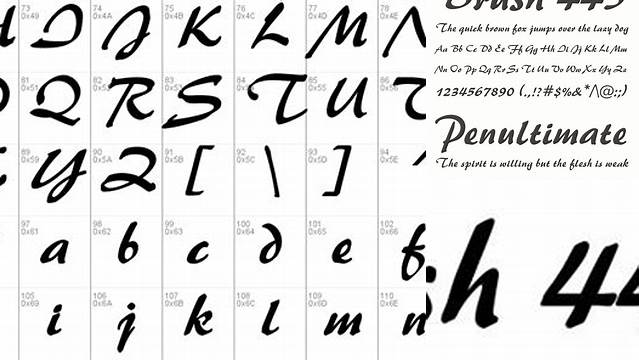
Brush 445 Font: Free Download & Creative Uses
Let's dive into everything about the Brush 445 font family. This article will explore where you can snag a free download and how to use it creatively. We'll cover its history, design characteristics, licensing, and even some cool examples of how it's been used in real-world projects. So, if you're looking to add a bit of flair to your design toolkit, keep reading!
What is Brush 445 Font?
Okay, so what exactly is the Brush 445 font? Simply put, it's a typeface known for its bold, hand-drawn aesthetic. It's designed to mimic the look of lettering done with a brush, giving it a personal and somewhat informal feel. Think of it as the font equivalent of handwritten notes – energetic, expressive, and full of character. It's great for projects where you want to convey authenticity and a human touch.
History of Brush 445
Understanding the history of the Brush 445 font gives us a greater appreciation for its design and usage. While the exact origins can sometimes be murky with lesser-known fonts, understanding its lineage can often shed light on why it looks and feels the way it does. Knowing the historical context helps you use it appropriately and appreciate its design influences.
Design Characteristics
The charm of the Brush 445 font lies in its design characteristics. It's got that unmistakable hand-lettered vibe, with slightly uneven strokes and a lively baseline. This makes it stand out from more sterile, geometric fonts. The thickness varies throughout each letter, adding to its organic appearance. Look closely, and you'll notice the subtle imperfections that make it so appealing. These imperfections are precisely what gives Brush 445 its character and prevents it from feeling too polished or generic.
Similar Fonts to Brush 445
If you're having trouble finding the Brush 445 font or want to explore similar styles, there are plenty of alternatives out there. Search for fonts described as "brush script," "handwritten," or "marker fonts." Some popular options include Permanent Marker, Amatic SC, and Indie Flower. These fonts share that same casual, hand-drawn feel, and can often be used interchangeably with Brush 445 depending on your project's needs.
Using Brush 445 in Graphic Design
When it comes to graphic design, the Brush 445 font can be a real workhorse. It's fantastic for creating eye-catching headlines, logos, and posters. Because of its informal vibe, it works particularly well for projects targeting younger audiences or those aiming for a more relaxed feel. Think about using it for event flyers, social media graphics, or even website headers to add a touch of personality.
Brush 445 in Logo Design
For logo design, the Brush 445 font can give your brand a unique and approachable identity. It's especially effective if your business wants to convey creativity, authenticity, or a handmade quality. Imagine a bakery using a Brush 445-style logo – it instantly tells customers that their products are made with love and care. However, consider readability, especially at smaller sizes, to ensure the logo remains legible across different platforms.
Brush 445 in Web Design
In web design, using the Brush 445 font sparingly can add visual interest and personality. Avoid using it for large blocks of body text, as its decorative nature can hinder readability. Instead, use it for headings, subheadings, or call-to-action buttons to draw attention and create a focal point. Make sure your website remains accessible and easy to read for all users.
Brush 445 in Print Materials
When designing print materials, the Brush 445 font is a great choice for adding a personal touch. It works well for invitations, greeting cards, posters, and flyers. Its bold strokes and hand-drawn feel can make your designs stand out from the crowd. Just be mindful of the font size and spacing to ensure everything is legible when printed.